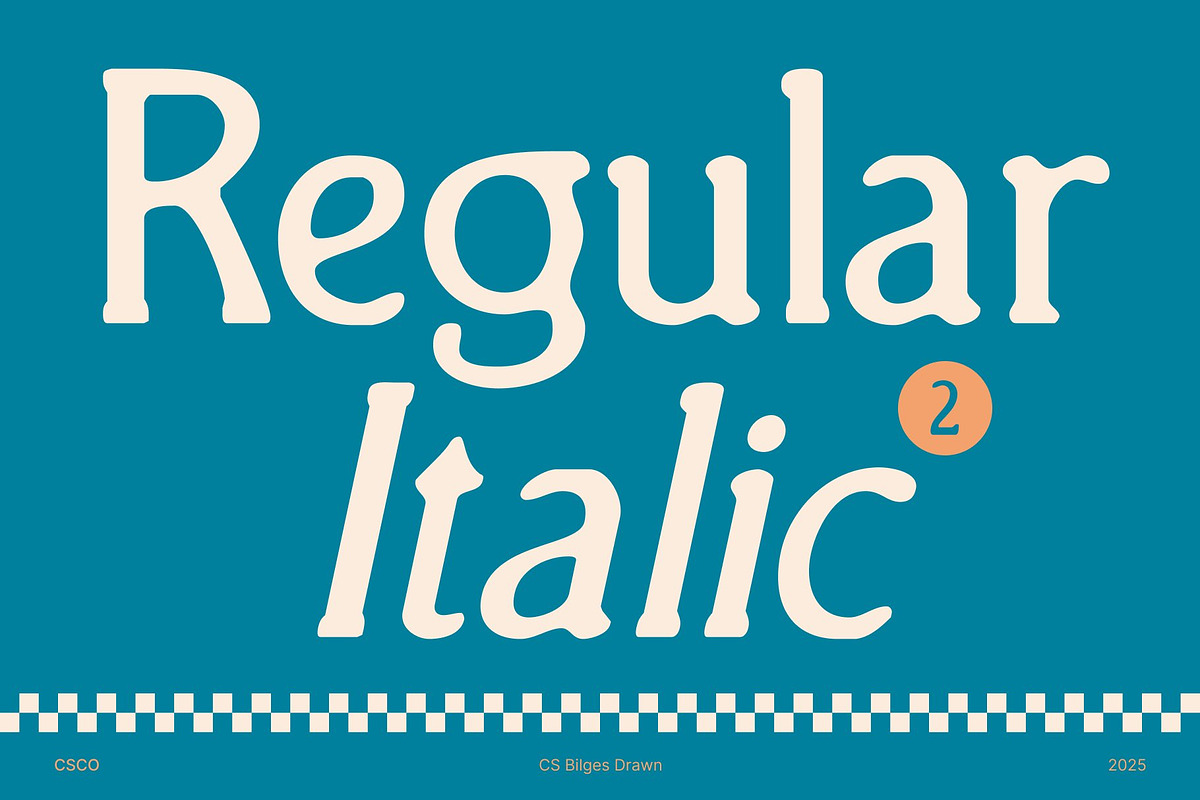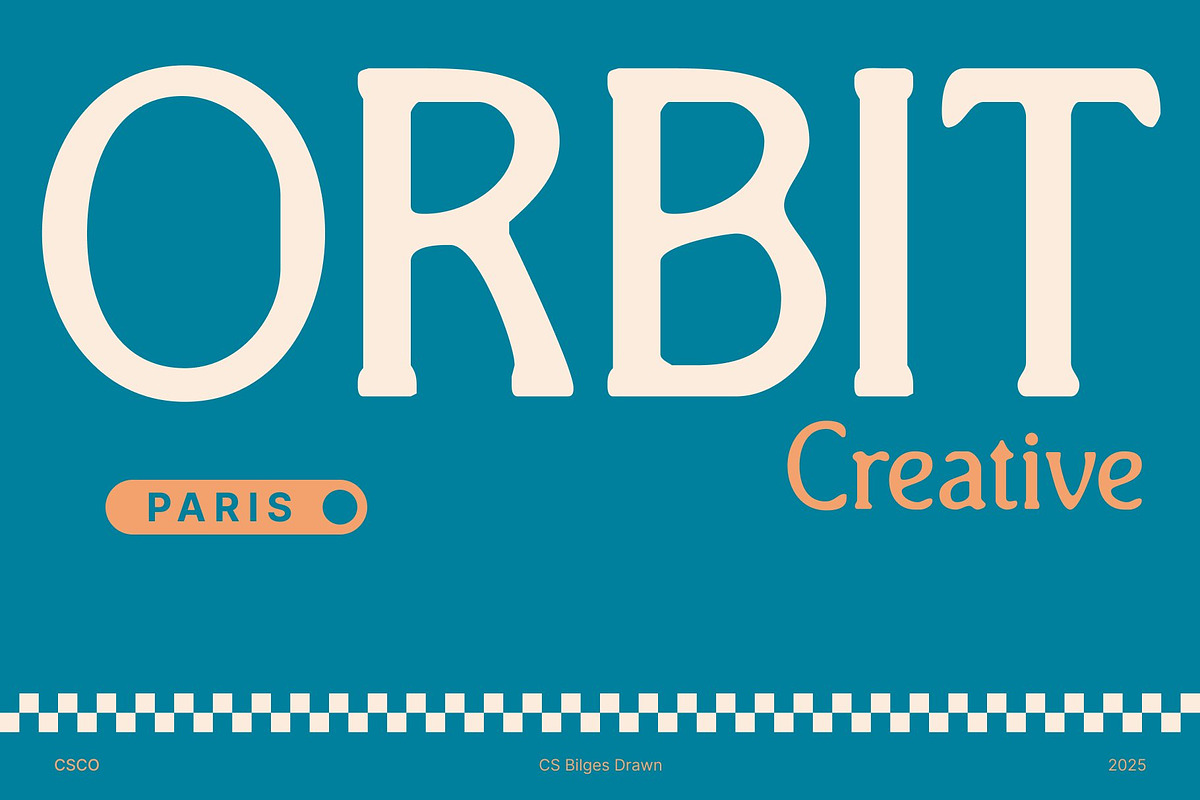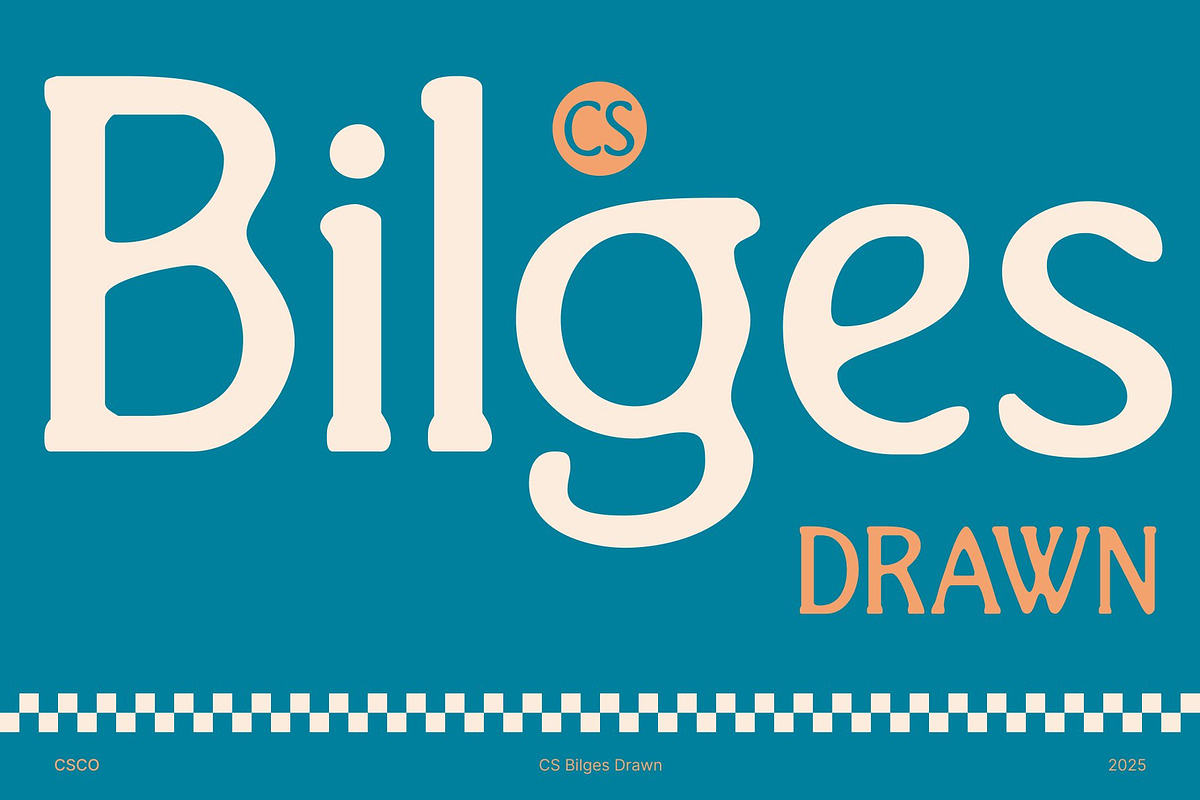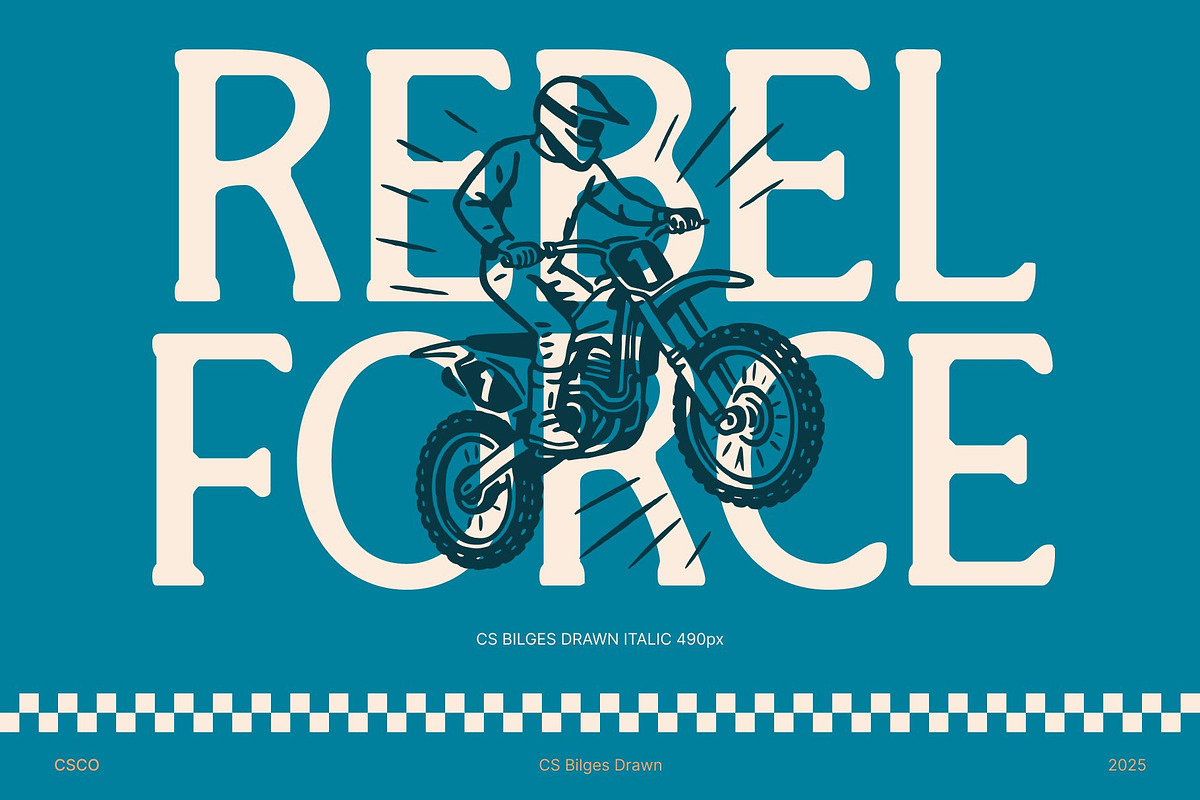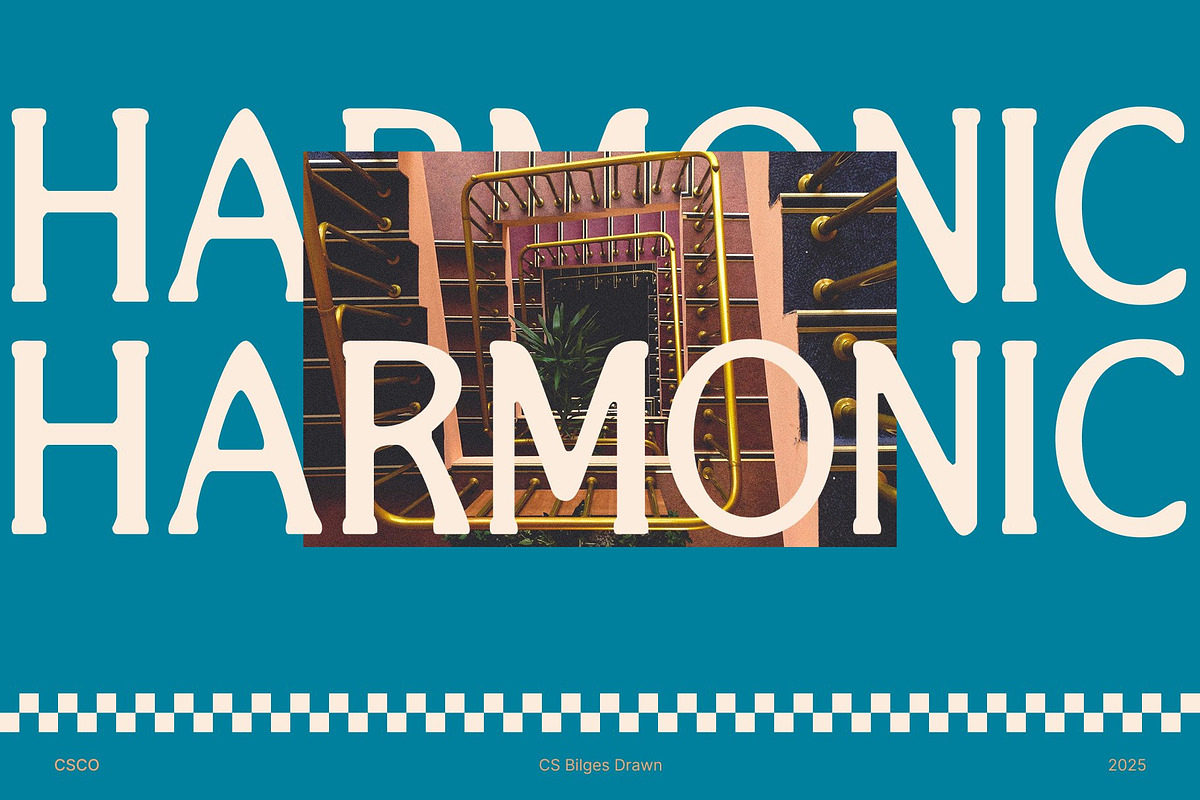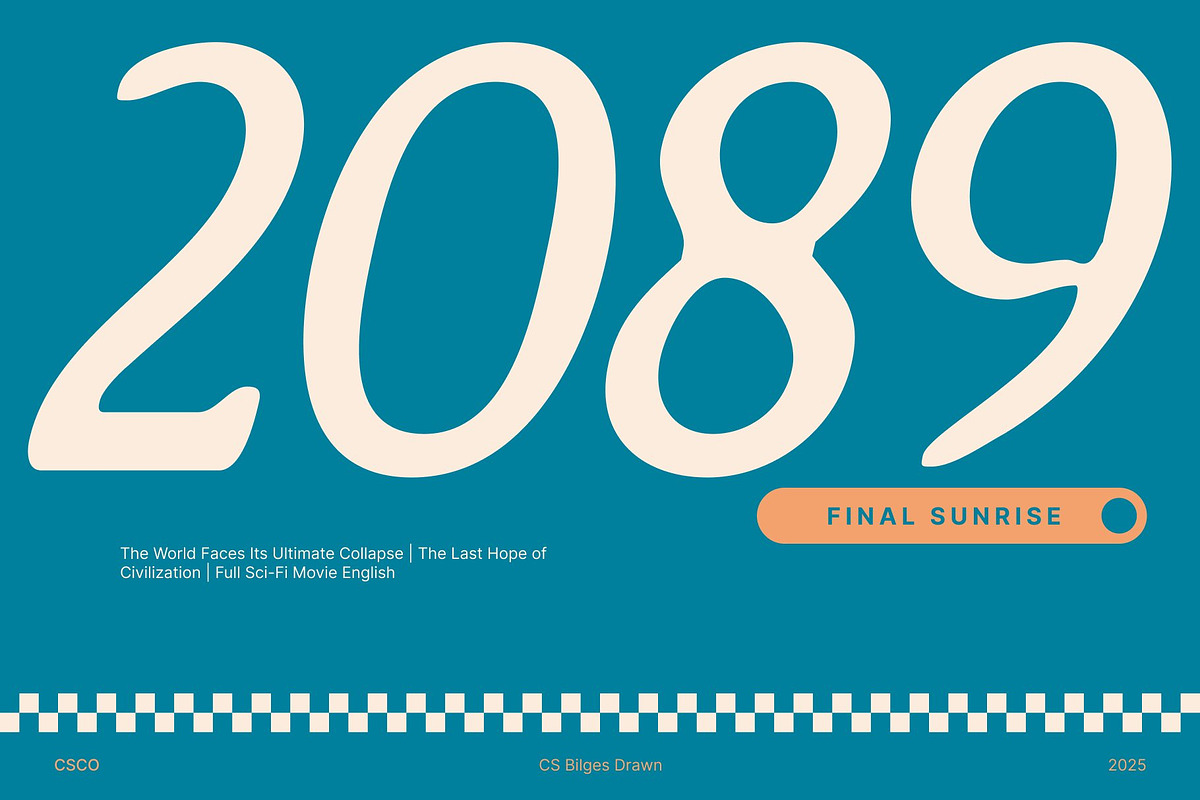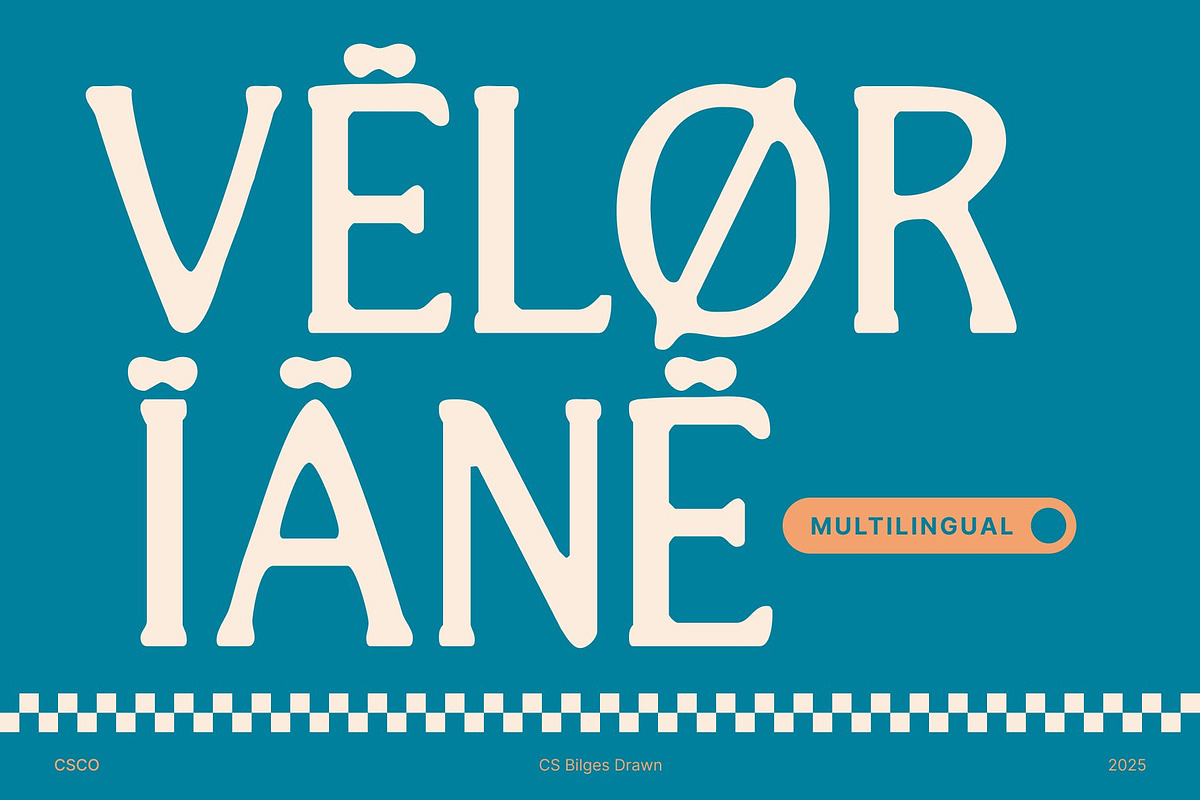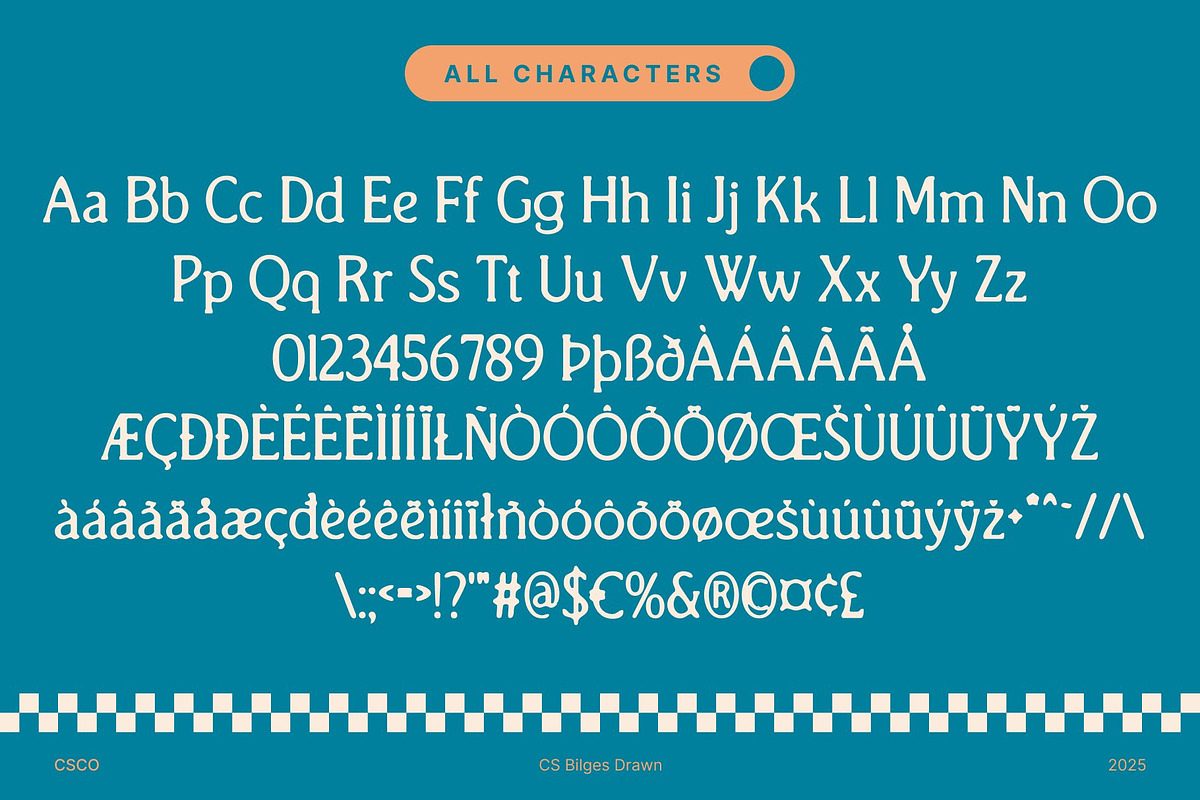
CS Bilges Drawn
CS Bilges Drawn – Retro Serif Font with Handcrafted Soul
Classic Retro Elegance This font captures the timeless spirit of vintage typography with its retro serif design. Each curve and stroke channels the sophistication of classic letterforms, bringing back the nostalgic feel of old print styles while adding a fresh, handcrafted twist. The result is a font that blends tradition with artistry perfect for designs that seek depth and authenticity.
Hand-Drawn Texture for Authentic Appeal This font’s natural, drawn texture gives every letter a tactile warmth that feels personal and expressive. The subtle imperfections enhance its charm, creating a sense of individuality in every character. Whether used for titles or logos, this font introduces organic movement that makes your text feel alive and crafted by hand.
Nostalgia with Modern Adaptability While rooted in the past, this font stays relevant in today’s design landscape. Its vintage structure harmonizes beautifully with modern layouts, allowing designers to merge old school aesthetics with current visual trends. This balance makes it a versatile choice for projects that want to evoke both memory and modernity.
Perfect for Retro Inspired Creations This font shines in branding, posters, packaging, and editorial designs where a touch of nostalgia can elevate the message. From retro campaigns to artistic projects, this font brings emotion, personality, and a handcrafted presence making every word feel like a piece of design history reborn.